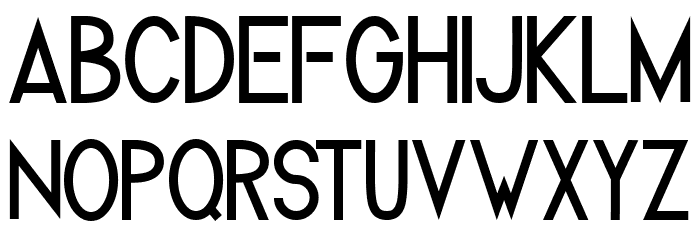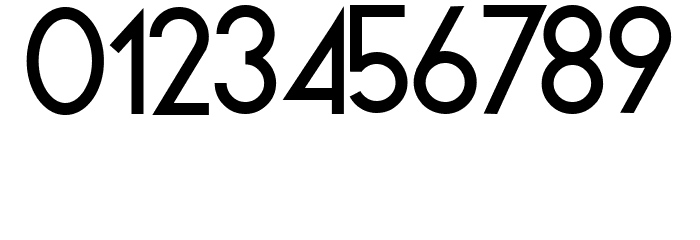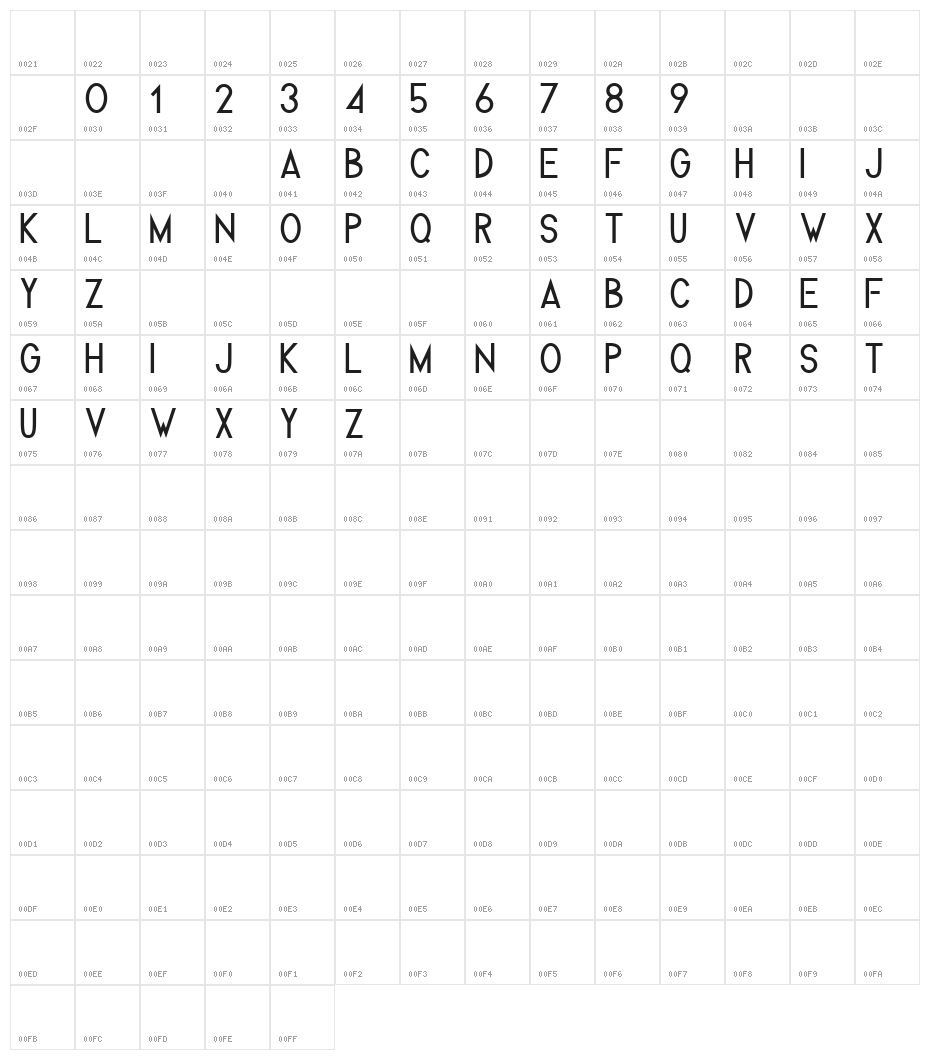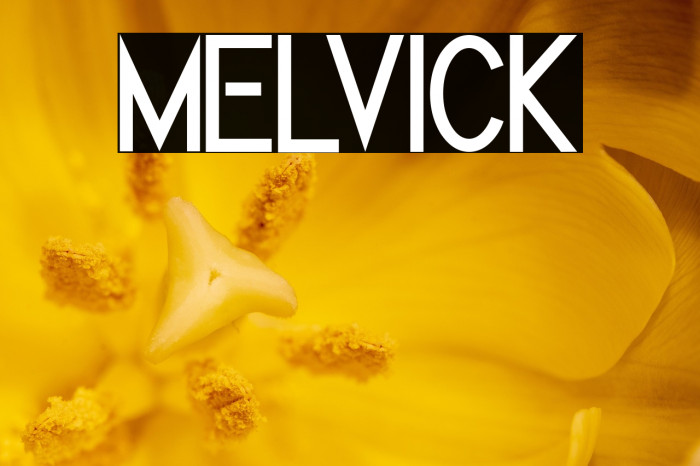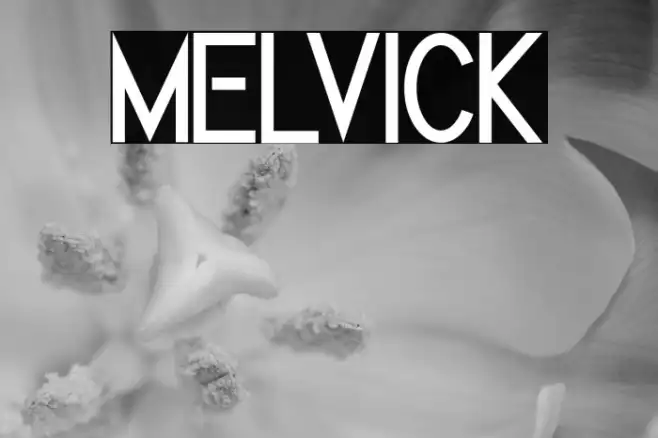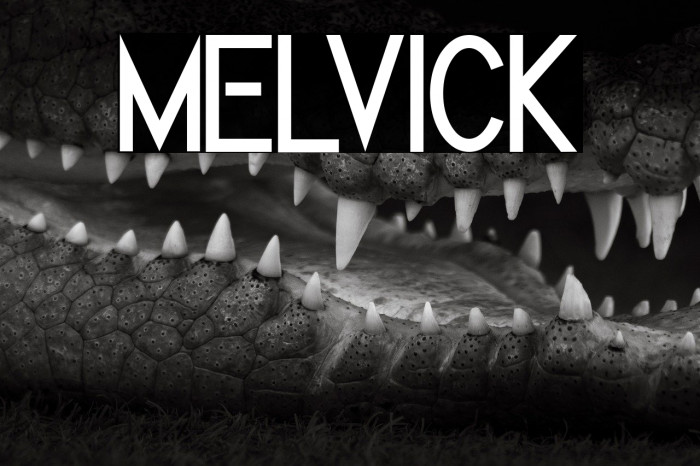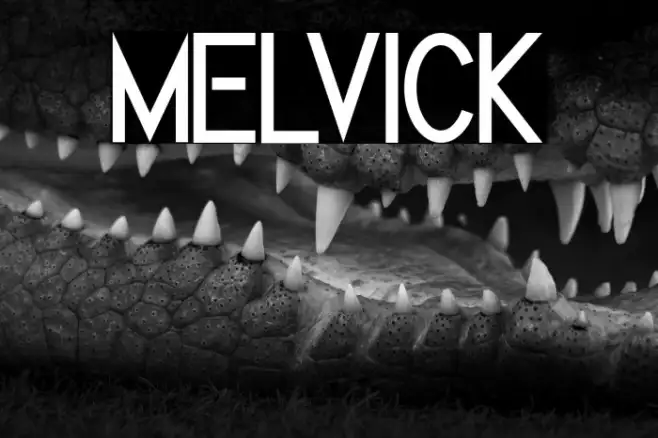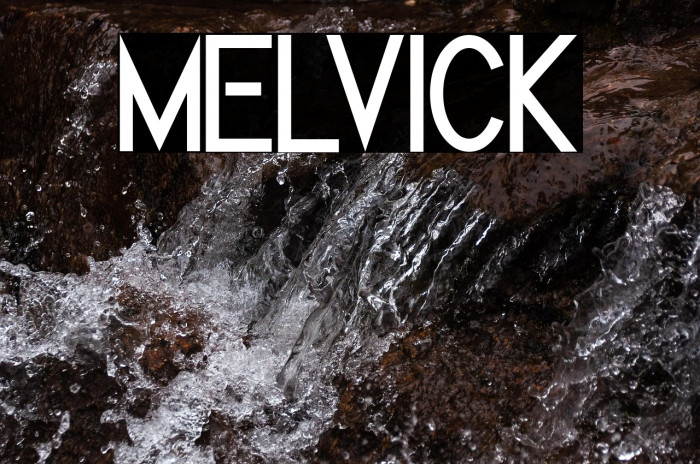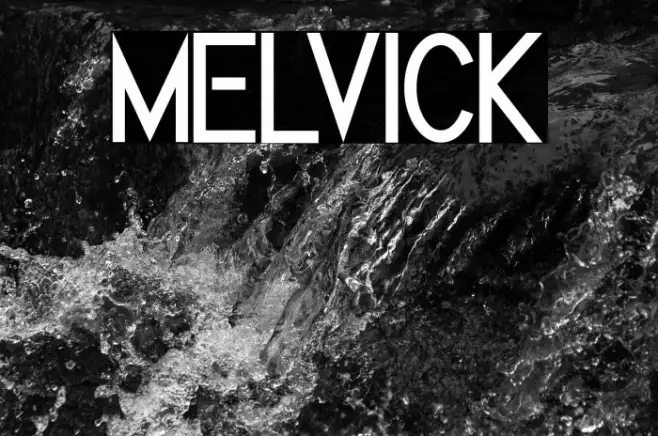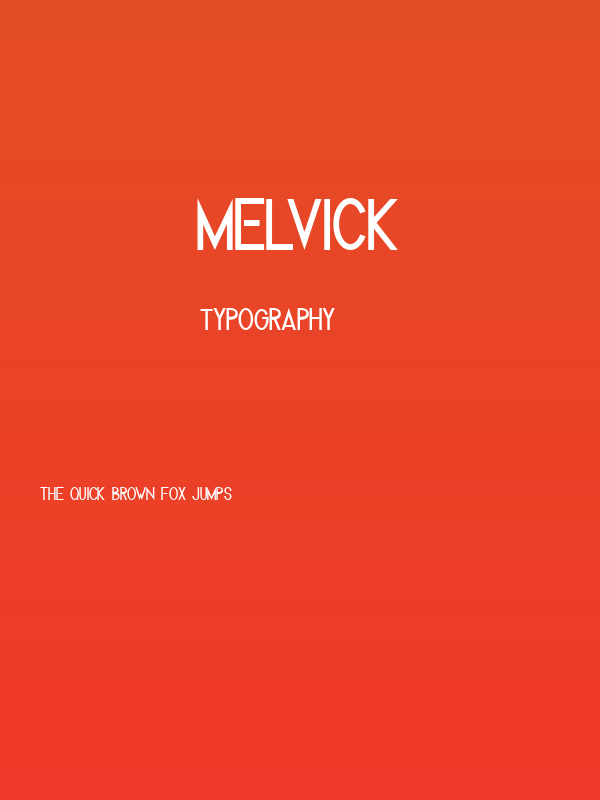
Melvick Font
This font features a clean and modern sans-serif design with a geometric structure. The characters are bold and uniform, providing excellent readability. The uppercase letters are tall and slightly condensed, while the lowercase letters maintain a consistent height, creating a harmonious balance. The numerals are clear and distinct, making them suitable for various applications. The overall appearance is sleek and professional, with a contemporary feel that is versatile for both digital and print media.
A modern, geometric sans-serif font with bold, clean lines.
- Proposed Projects: Ideal for branding, advertising, web design, and editorial layouts.
- Use Case: Headlines, Logos, Branding